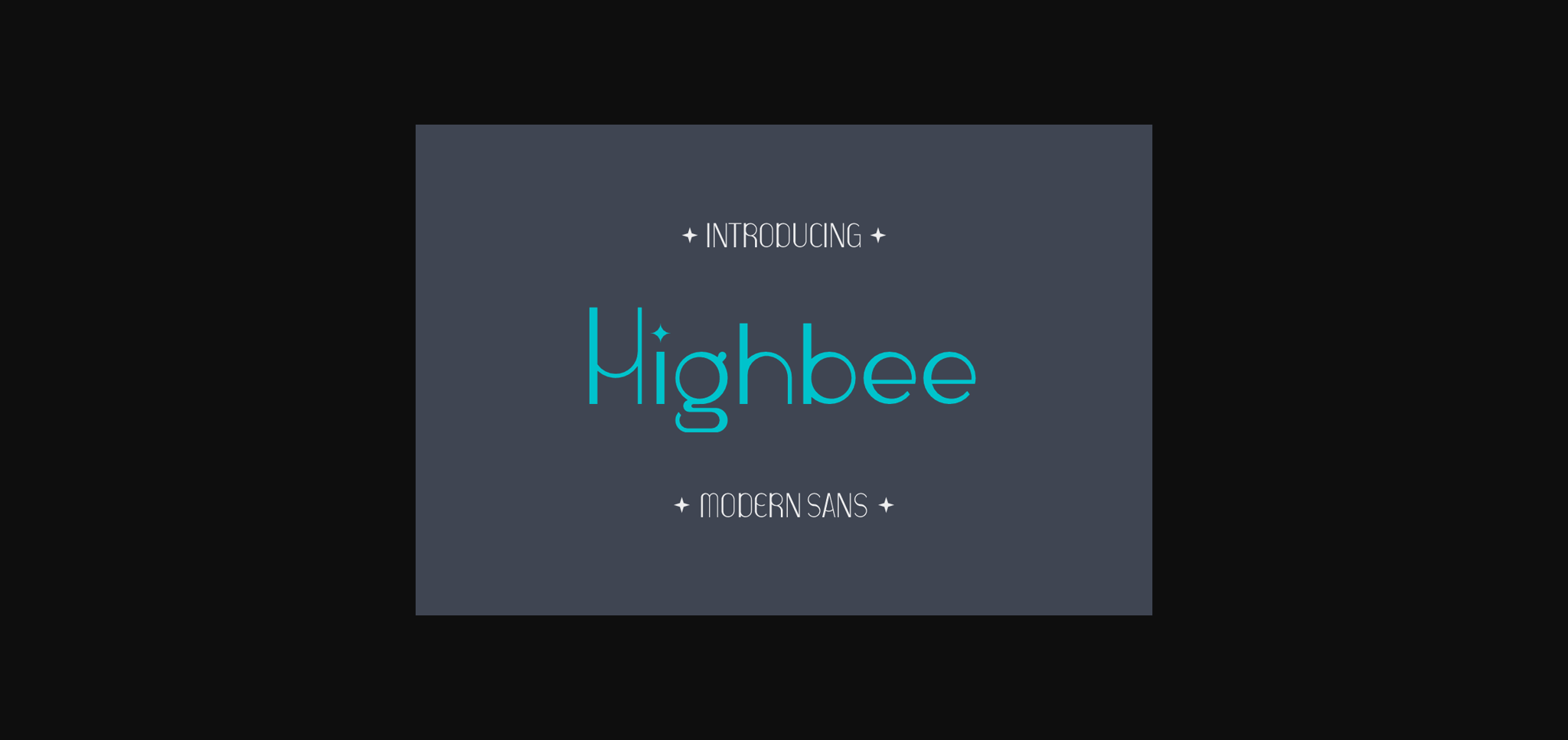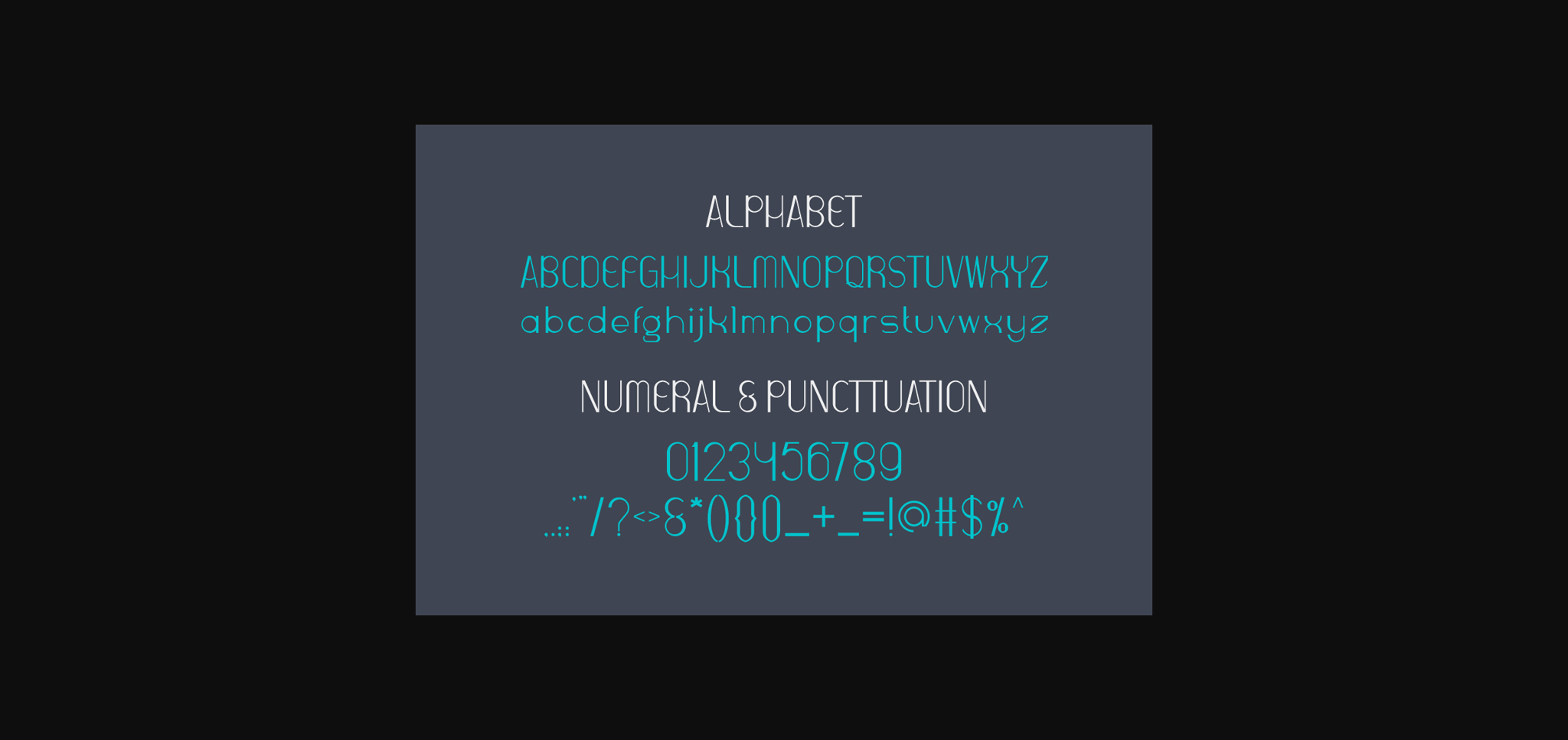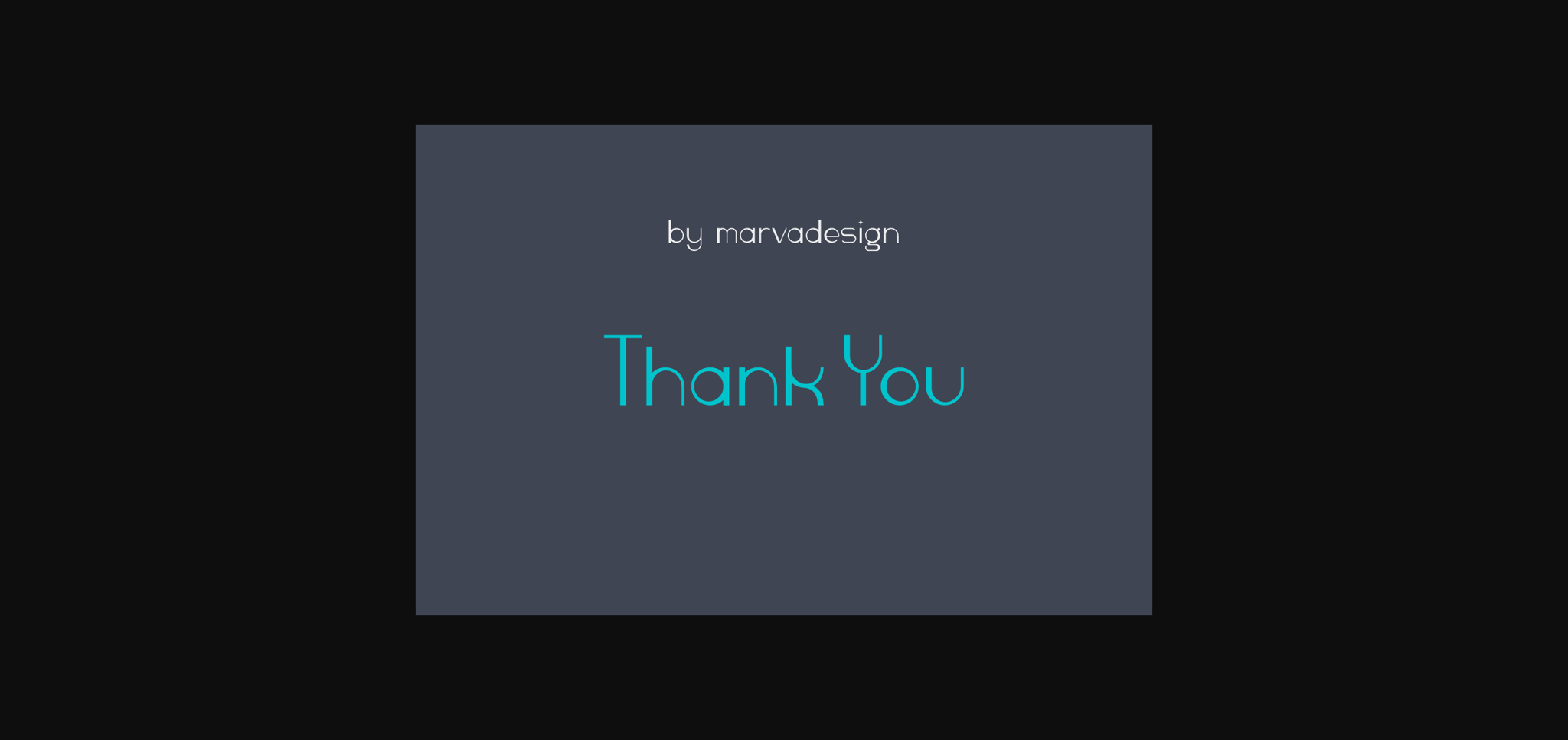
About Highbee Font
Highbee is a modern and authentic sans-serif font. The font is suitable for any branding project like logo, t-shirt printing, product packaging, and many more. It will look outstanding in a wide range of contexts.